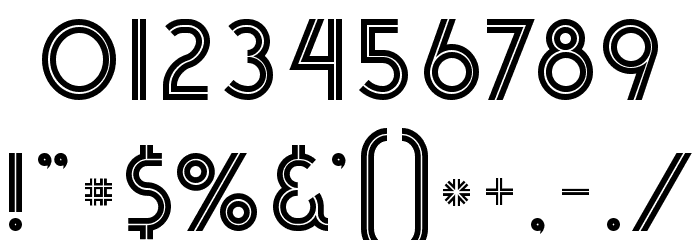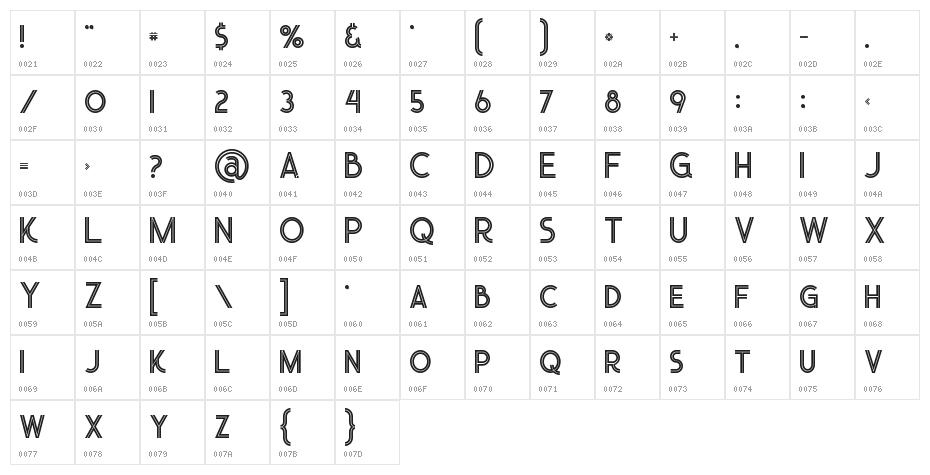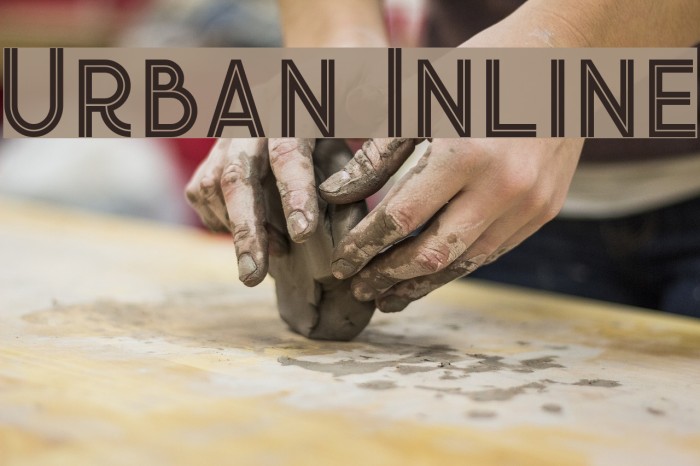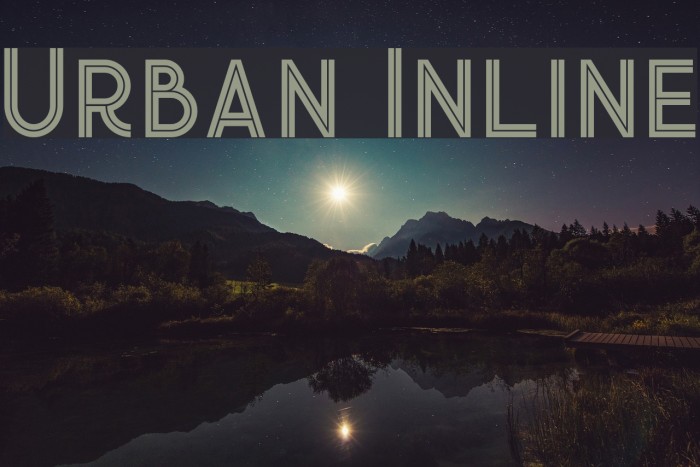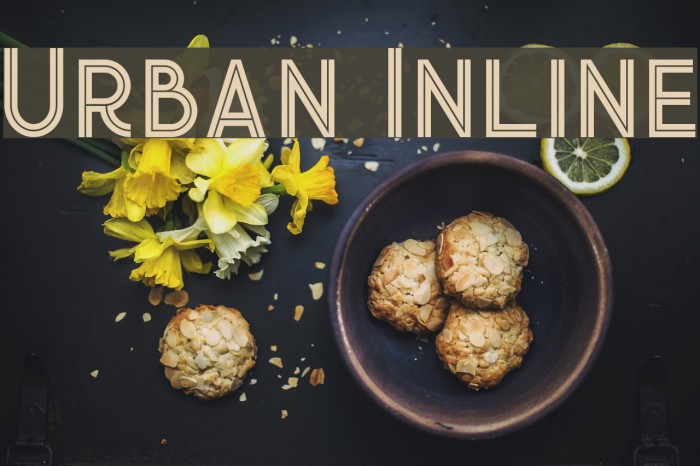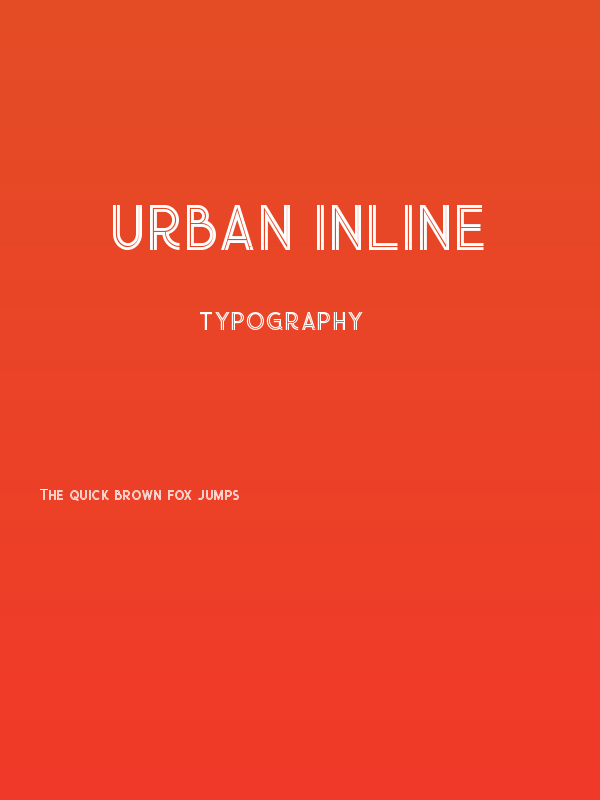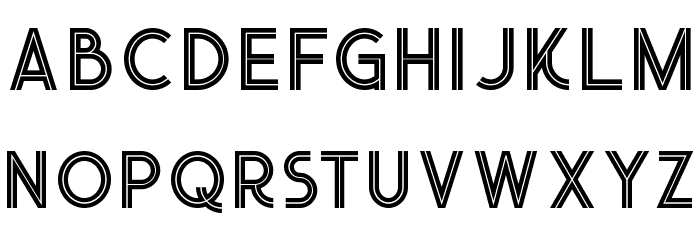
Urban Inline Font
Urban Inline Description
This font features a modern, geometric design with clean lines and an inline style that adds depth and dimension. The uppercase and lowercase letters are consistent in their structure, maintaining a uniform appearance. The numerals are distinct and easy to read, complementing the overall aesthetic. Special characters are designed with the same attention to detail, ensuring a cohesive look across all elements. The inline detail provides a unique visual interest, making it suitable for eye-catching designs.
| Proposed Projects | Ideal for branding, posters, headlines, and any project requiring a modern and stylish look. |